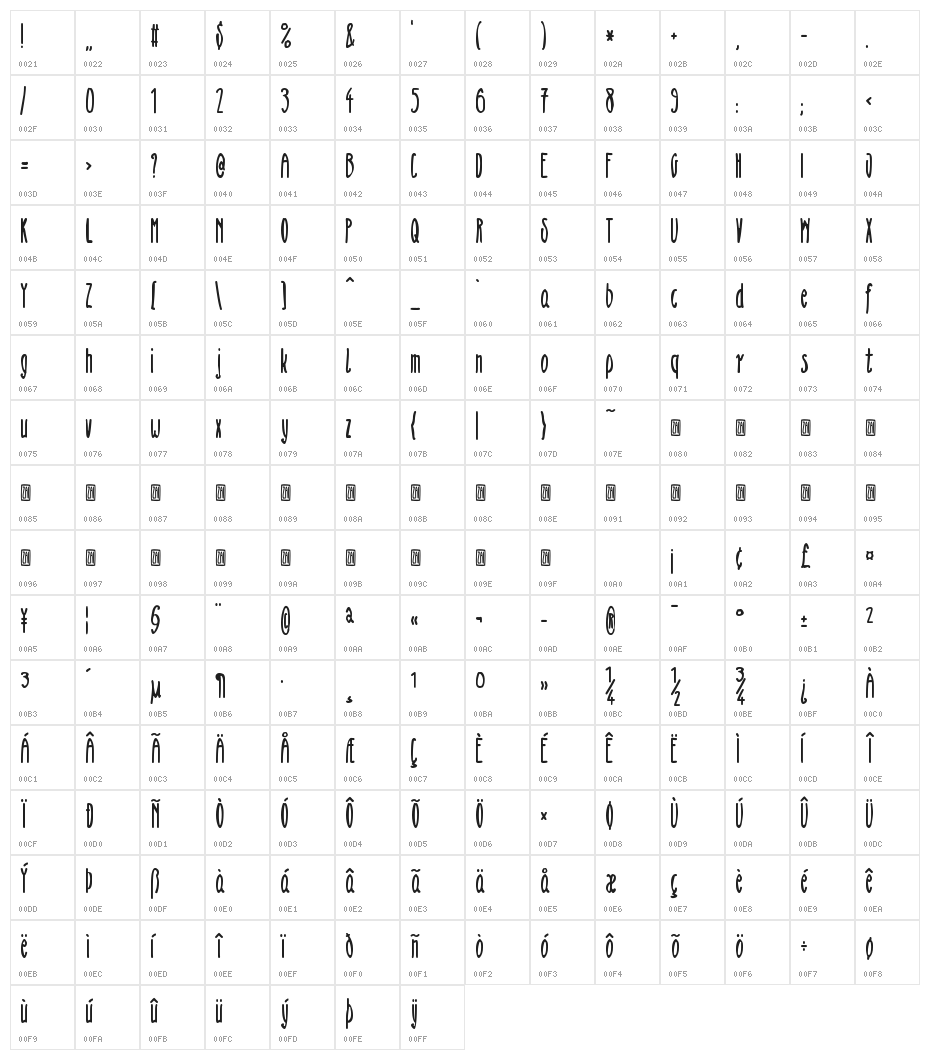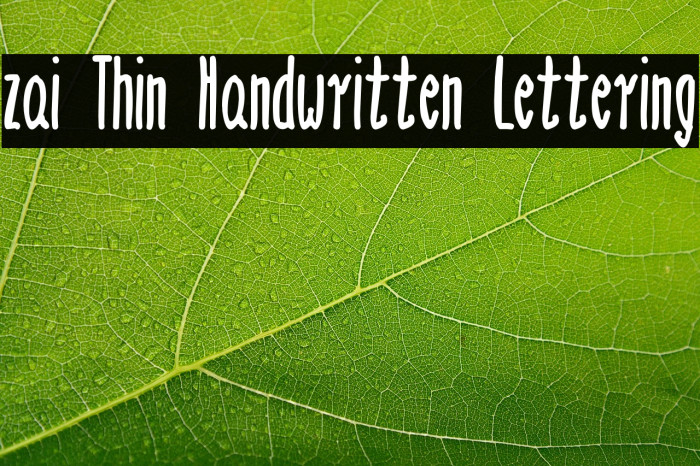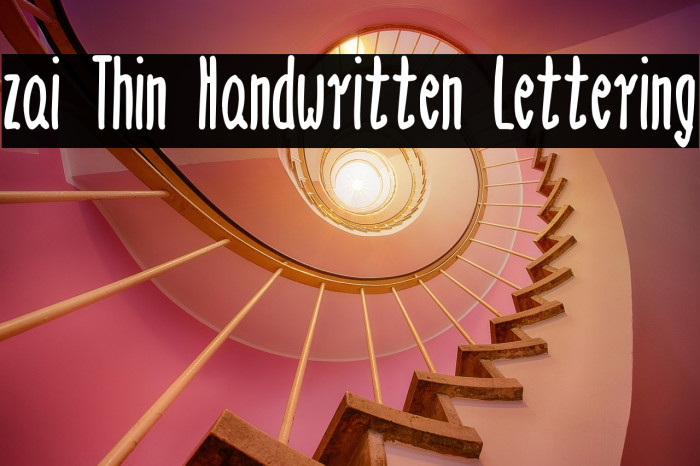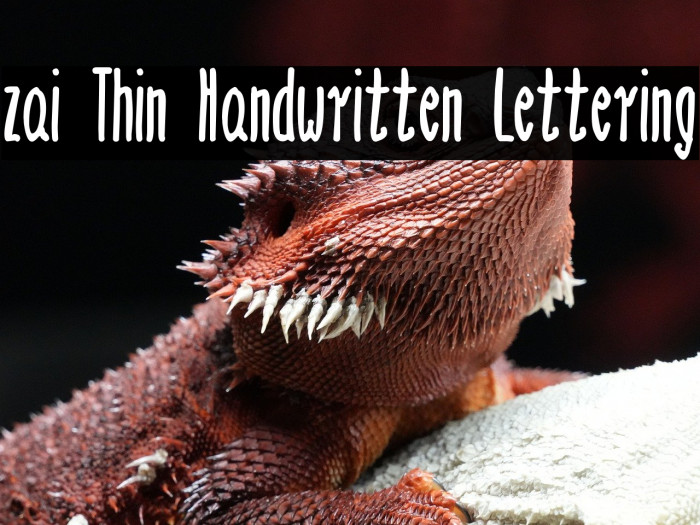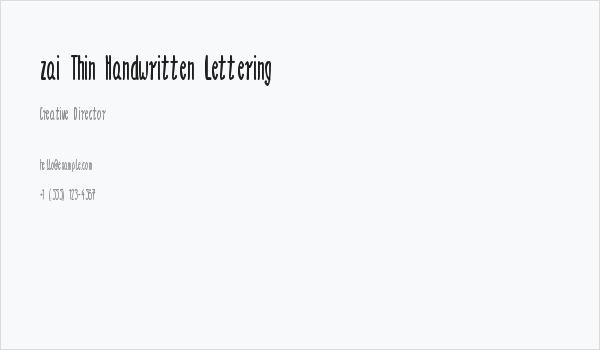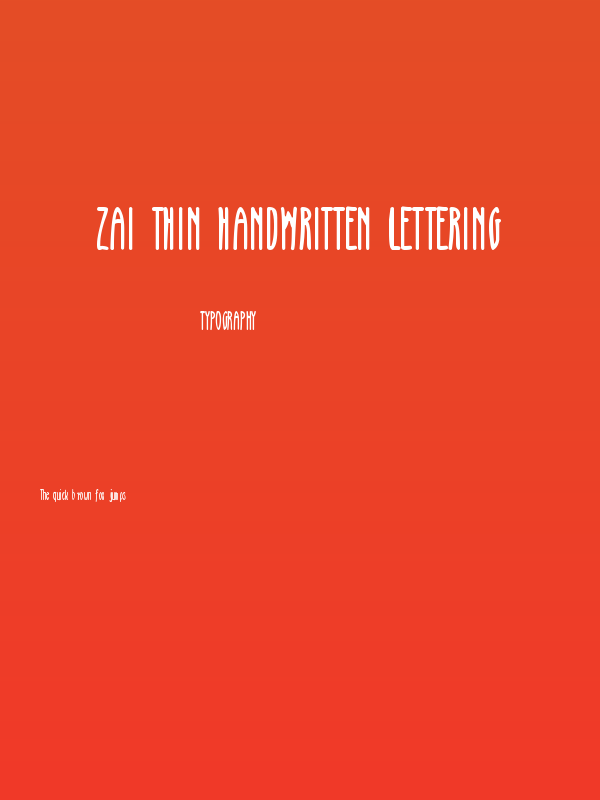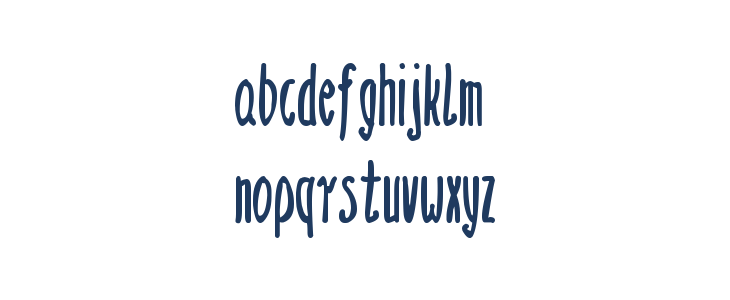
zai Thin Handwritten Lettering Font
| Gesamtstil | Casual and playful |
| Anwendungsfall | Logos, headlines, and decorative text. |
| Vorgeschlagene Projekte | Ideal for greeting cards, personal branding, social media graphics, and informal invitations. |